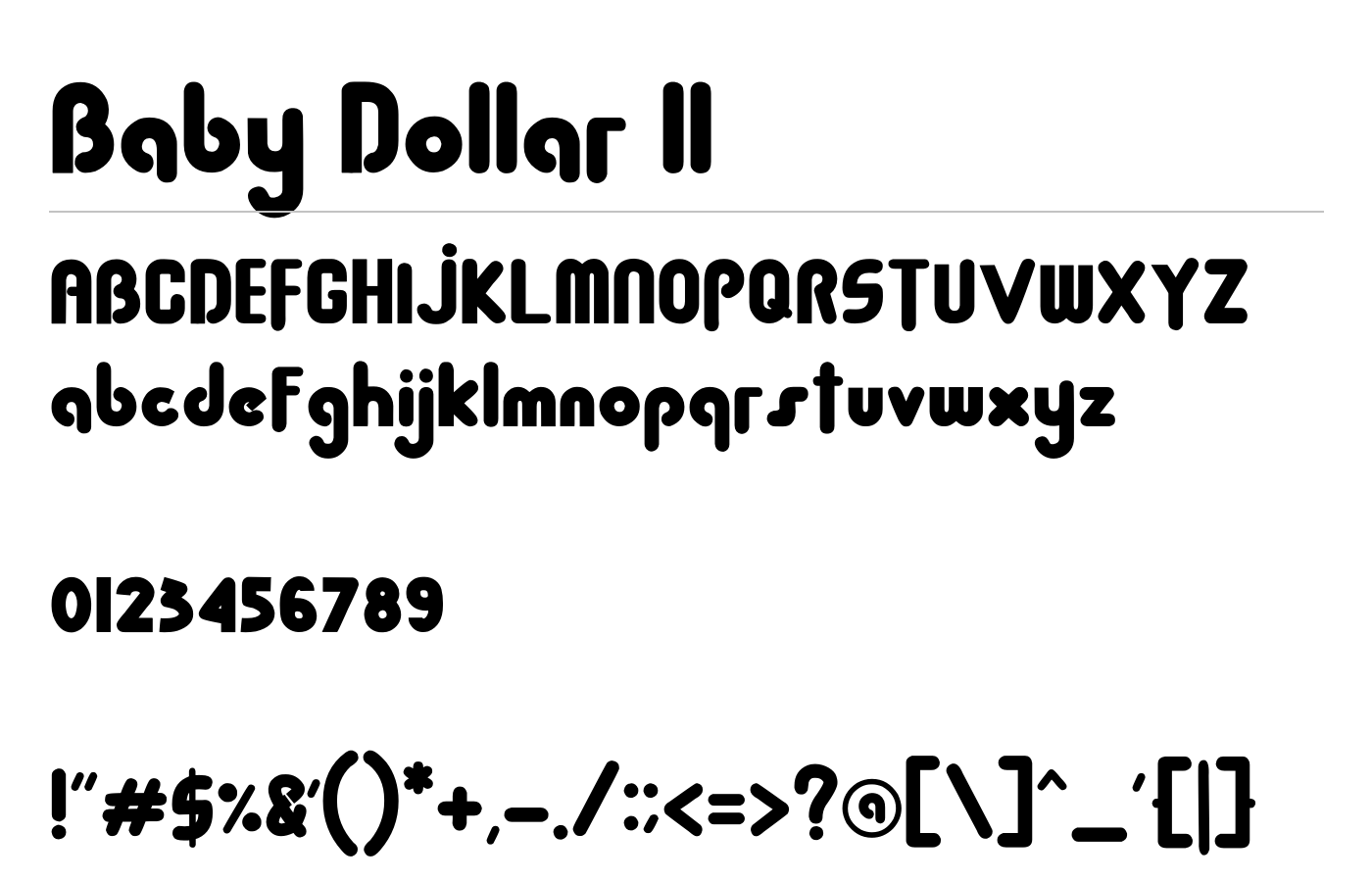
Baby Dollar II is a bold, rounded sans serif font with a playful and modern vibe. Its thick, uniform strokes and quirky letterforms create a friendly feel, making it ideal for eye-catching headlines, logos, and packaging that aim to convey fun and approachability. This font works especially well for projects that want a unique, informal style without losing clarity.
Baby Dollar ll Font
About Baby Dollar ll Font
| Font family | Baby Dollar ll Font |
| Designer | hindro cholis |